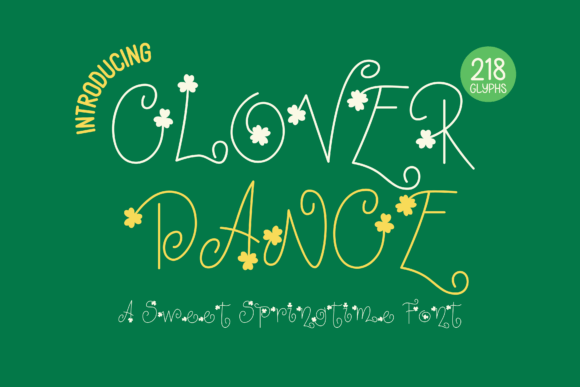
The Magic of Clover Dance Font: Elevate Your St. Patrick’s Day Projects
I’ll never forget the time I was working on a St. Patrick’s Day-themed invitation for a friend’s party. I had the design all planned out, but I just couldn’t find the perfect font to capture the playful, festive spirit of the holiday. That was until I stumbled upon Clover Dance Font. It was like a pot of gold at the end of a rainbow – the perfect hand-lettered font that added a fun and friendly feel to my project.
An Honest Review of Clover Dance Font
So, what makes Clover Dance Font so special? Let’s dive into the good stuff and a few quirks I’ve discovered.
- ✨ Playful curves and delightful style: Clover Dance Font has a unique, hand-lettered charm that’s perfect for St. Patrick’s Day projects.
- ✅ Delicate lines and adorable clover leaves: The font’s attention to detail is impressive, making it perfect for designs that require a touch of whimsy.
- 💃 Versatility: Whether you’re creating invitations, prints, or social media graphics, Clover Dance Font is sure to shine.
While Clover Dance Font is an amazing addition to any design project, there are a few things to keep in mind:
- ⚠️ Limited character set: As a specialty font, Clover Dance Font might not have all the characters you need for every project. Be sure to check the font’s capabilities before committing to a design.
- 🤔 May require some kerning adjustments: Depending on the design, you might need to tweak the kerning to get the perfect spacing between letters.
The Story Behind Clover Dance Font
Clover Dance Font was designed with the intention of capturing the magic of St. Patrick’s Day. The designer, inspired by the rolling green hills of Ireland and the symbolism of the shamrock, created a font that’s both festive and elegant.
| Font Name | Clover Dance Font |
| Author | IngingDigitalArt |
Q: What makes Clover Dance Font unique?
A: Clover Dance Font’s unique blend of playful curves, delicate lines, and adorable clover leaves makes it a one-of-a-kind font for St. Patrick’s Day projects.